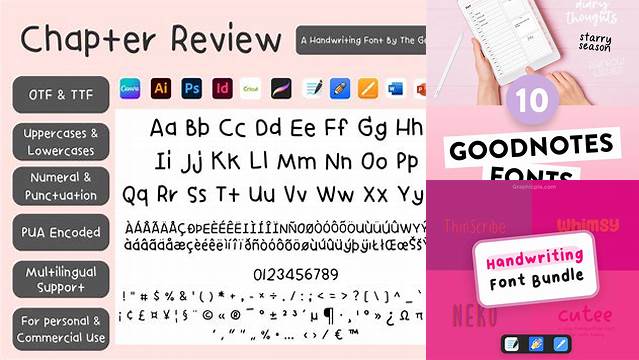
GoodNotes Handwriting Fonts Reddit
Hey guys! Ever find yourself staring at your iPad, wishing your digital notes looked a little less…robotic? You're not alone! The quest for the perfect handwriting fonts in GoodNotes is a journey many of us embark on. And where do we turn for advice, tips, and recommendations? You guessed it: Reddit! Let's dive into the world of GoodNotes fonts, explore what the Reddit community is buzzing about, and help you find the perfect handwritten font to make your digital notes pop.
Finding Your Perfect Handwriting Font
So, you're ready to ditch the generic fonts and embrace the beauty of handwritten notes, right? Awesome! The first step is, naturally, to figure out which font will be the best for your notes. The variety available can be a little overwhelming, so we're going to break it down, helping you get started on the right foot. This is where Reddit comes in handy. The GoodNotes subreddit is full of users sharing their favorite fonts, tips, and tricks for getting the most out of the app. When it comes to GoodNotes handwriting fonts, the options are plentiful, but they generally fall into a few categories. The first is built-in fonts. GoodNotes offers a handful of pre-installed fonts that mimic handwriting styles. While these can be a good starting point, they often lack the personality and uniqueness of a true handwriting font. Don’t get me wrong, these can work in a pinch, and can also be used to make your own handwriting font. These are perfect for those moments when you don't want to fiddle around with a specific font but just want to get your thoughts down quickly. They're generally clean and easy to read, making them a solid choice for quick notes or annotations. The second category involves downloading and installing custom fonts. This opens up a whole new world of possibilities. You can find fonts that perfectly match your own handwriting style, or choose from a wide array of pre-designed options. This is where the magic truly happens and where the Reddit community shines. Users frequently share their favorite font resources, from free font websites to paid options on platforms like Etsy. Finally, there is always the option of creating your own font. This is the most time-consuming option, but it gives you the most control over the final product. You can use apps or websites that let you trace your handwriting and turn it into a usable font file. This option requires some tech-savviness, but the result is a font that is truly unique to you. No matter which route you choose, remember that the best handwriting font is the one that you like the most. Experiment with different options, try out various styles, and don't be afraid to get a little creative!
Built-In vs. Custom Fonts
When deciding between built-in and custom handwriting fonts, it's like choosing between a trusty pen and a set of fancy calligraphy tools. The built-in fonts in GoodNotes are your reliable pens. They're convenient, readily available, and get the job done. They're often clean and easy to read, which is ideal for quick note-taking sessions or when you need to jot down something in a hurry. These are perfect when you're in a meeting and don't have time to mess around with custom fonts. The GoodNotes default handwriting fonts are designed for general use, so they may not have the unique flair you are looking for. However, these can be excellent for those who prefer a minimalist aesthetic or need a font that blends seamlessly into their documents. Then there's the world of custom fonts. Imagine having a set of calligraphy tools, each with a different nib and ink, allowing you to express yourself in myriad ways. Custom fonts are the calligraphy tools of the digital note-taking world. They allow you to personalize your notes, making them more visually appealing and engaging. Custom fonts let you express your personality in ways that built-in fonts simply can't match. The Reddit community thrives on sharing custom font recommendations. Users often rave about specific fonts they found on websites like DaFont, Creative Market, or Etsy, providing links and reviews to help others discover their perfect match. The advantage of custom fonts is the sheer variety. You can find fonts that mimic your own handwriting style, fonts that add a touch of elegance, or fonts that inject some fun into your notes. They can transform your digital notes from something functional to something truly beautiful and inspiring. While custom fonts require a little more effort to download and install, the payoff is well worth it. It is a matter of preference whether to use a built-in font or a custom font, and many users choose to use both. You might use a built-in font for quick notes, and custom fonts for headings and highlights. The beauty of GoodNotes is that you can try all the available options and find the perfect balance between function and flair.
How to Find the Best Handwriting Fonts on Reddit
So, where does Reddit come in when it comes to GoodNotes fonts? Well, Reddit is a goldmine of information for anyone looking to enhance their digital note-taking experience. The GoodNotes subreddit is a hub for users to share their experiences, ask questions, and offer recommendations on everything related to the app. When it comes to finding the best handwriting fonts, here's how the Reddit community can help you out. First, start by searching the subreddit for terms like